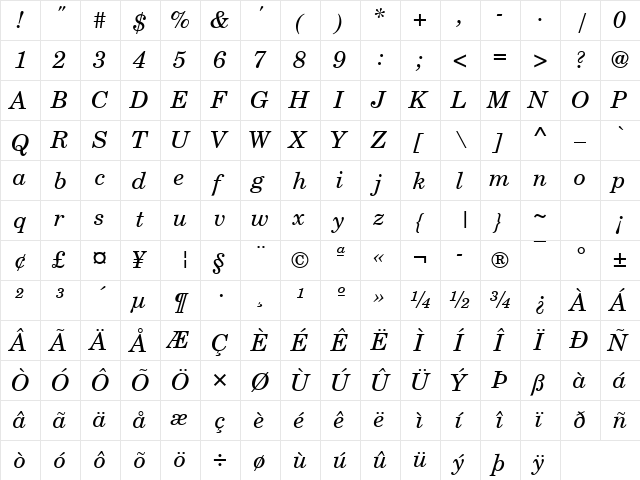
CenturySchL Italic
Design Context for CenturySchL Typeface
CenturySchL offers clean, dependable letterforms without strong stylistic allegiance, making it a practical choice for designers who need flexibility. The slanted form adds forward momentum and visual energy.
Pro Tip: Try CenturySchL for annotation and caption copy alongside an upright companion — the contrast in angle creates a dynamic but ordered typographic system.